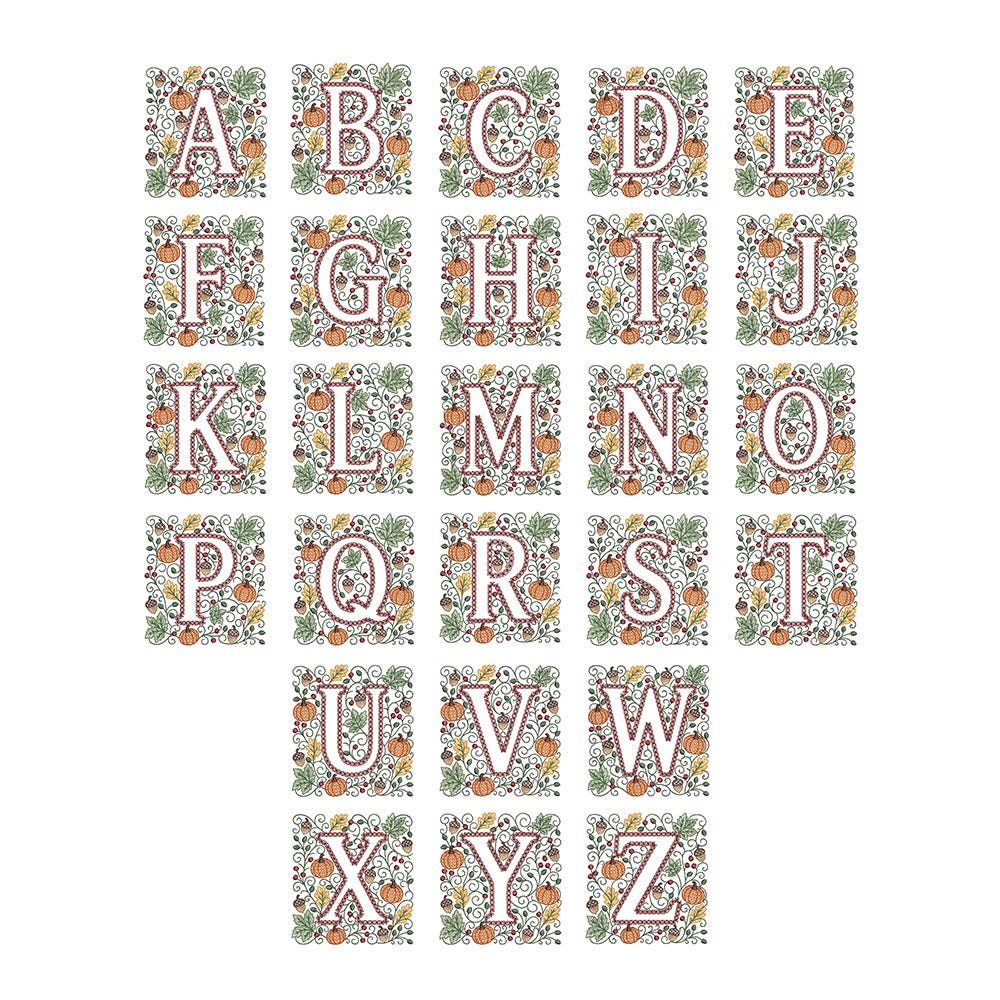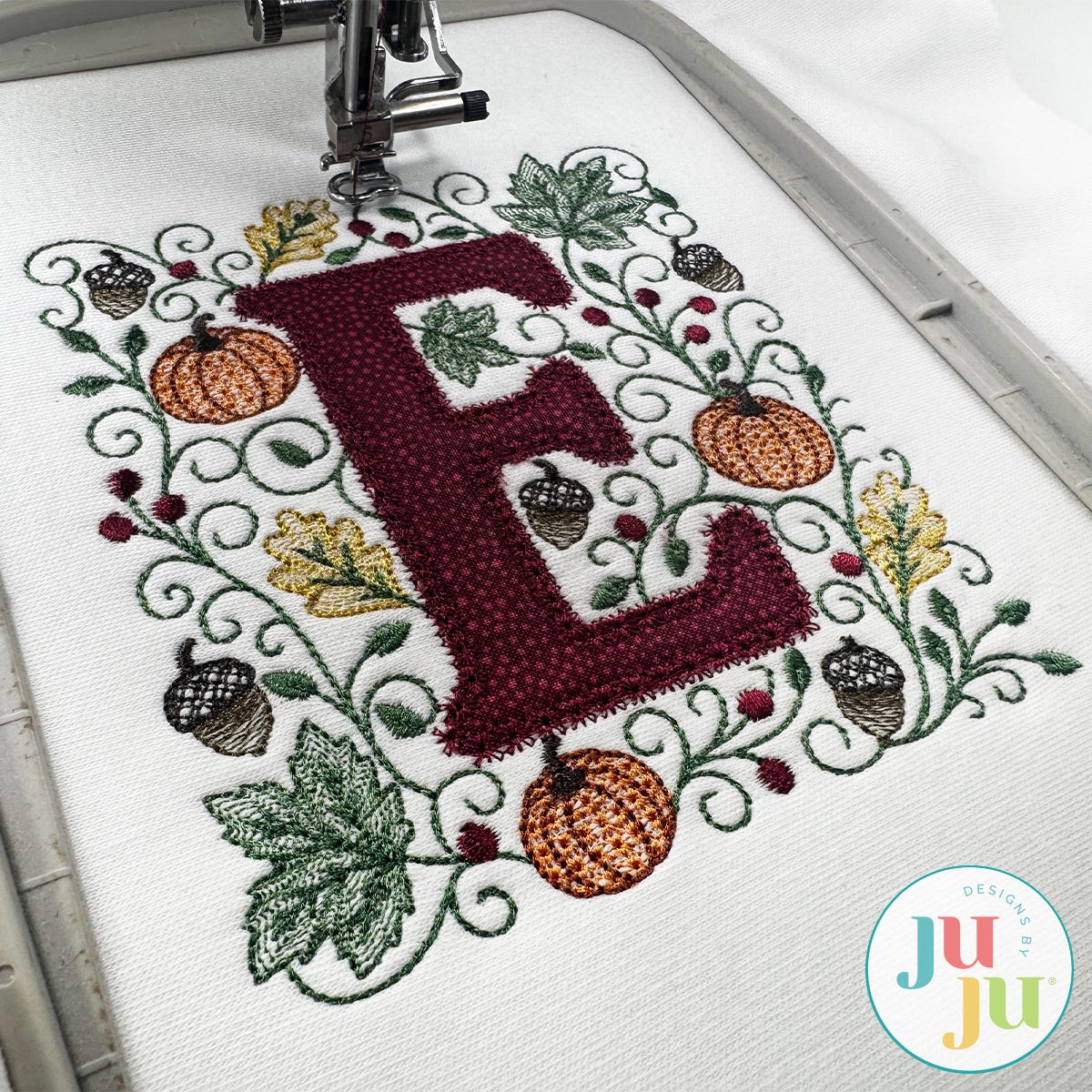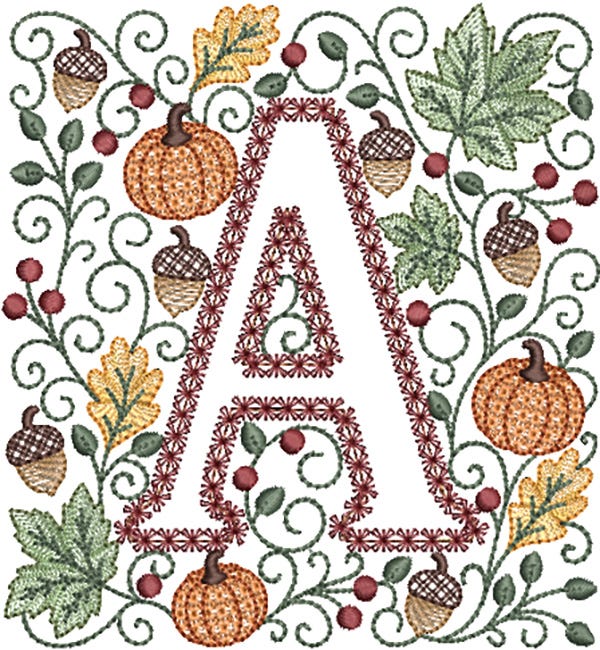
Elegant Autumn Motif Stitch Applique Monogram Embroidery Font
Add an elegant seasonal touch to your Fall stitching with our Elegant Autumn Motif Stitch Applique Monogram embroidery design set! This beautiful alphabet features applique letters finished with a classic chain stitch, surrounded by delicate embroidery frames with pumpkins, leaves, acorns, berries, vines, and swirls for a timeless Fall look.